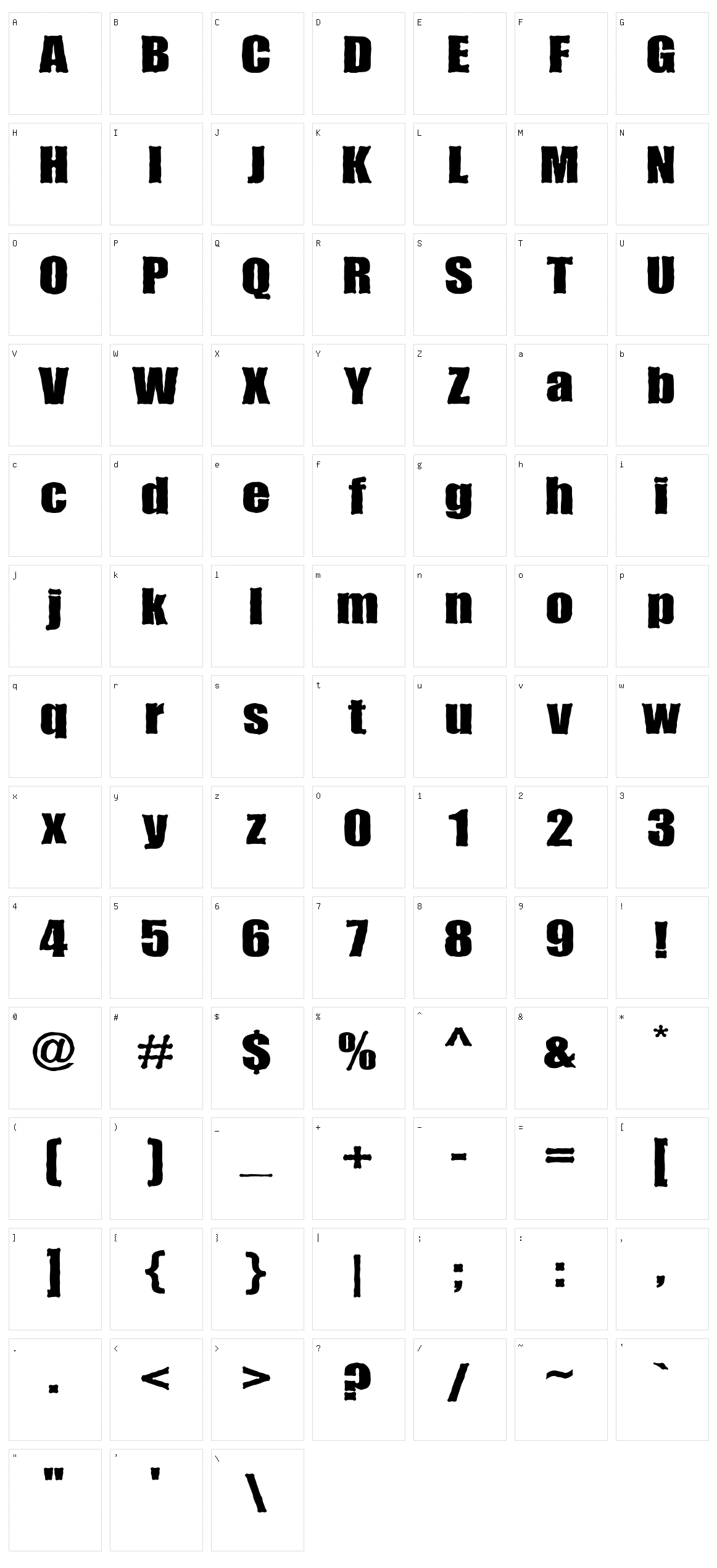
The free font The Buster is carefully designed by Display Studio, showcasing a thoughtful balance of creativity and usability and falls under the Western font style. When you download the ZIP file, it contains only 174.54 KB of font files, making it lightweight and quick to download. Please review the license details below to understand permitted usage and distribution rights. If license information is not available, we recommend using this font for personal projects only or contacting the author directly for commercial usage permissions.